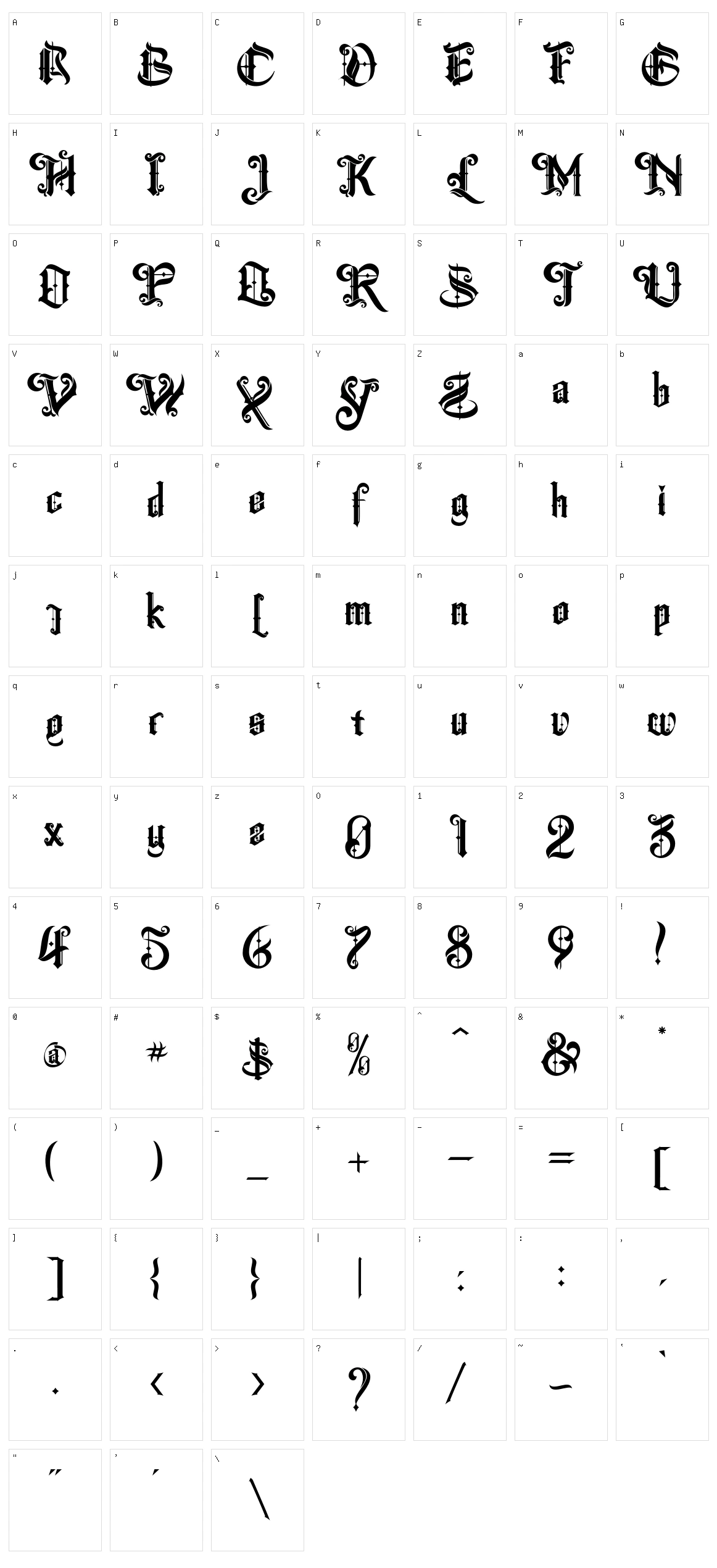
The Centurion
Category: Medieval & Gothic
The Centurion is a blackletter gothic, classic and artistic style font, perfect to be applied to your design projects.
Add this beautiful display font to each of your creative ideas and notice how it makes them stand out!